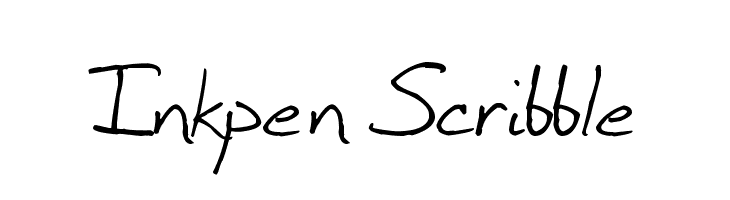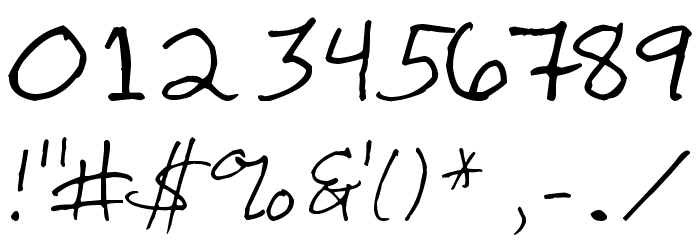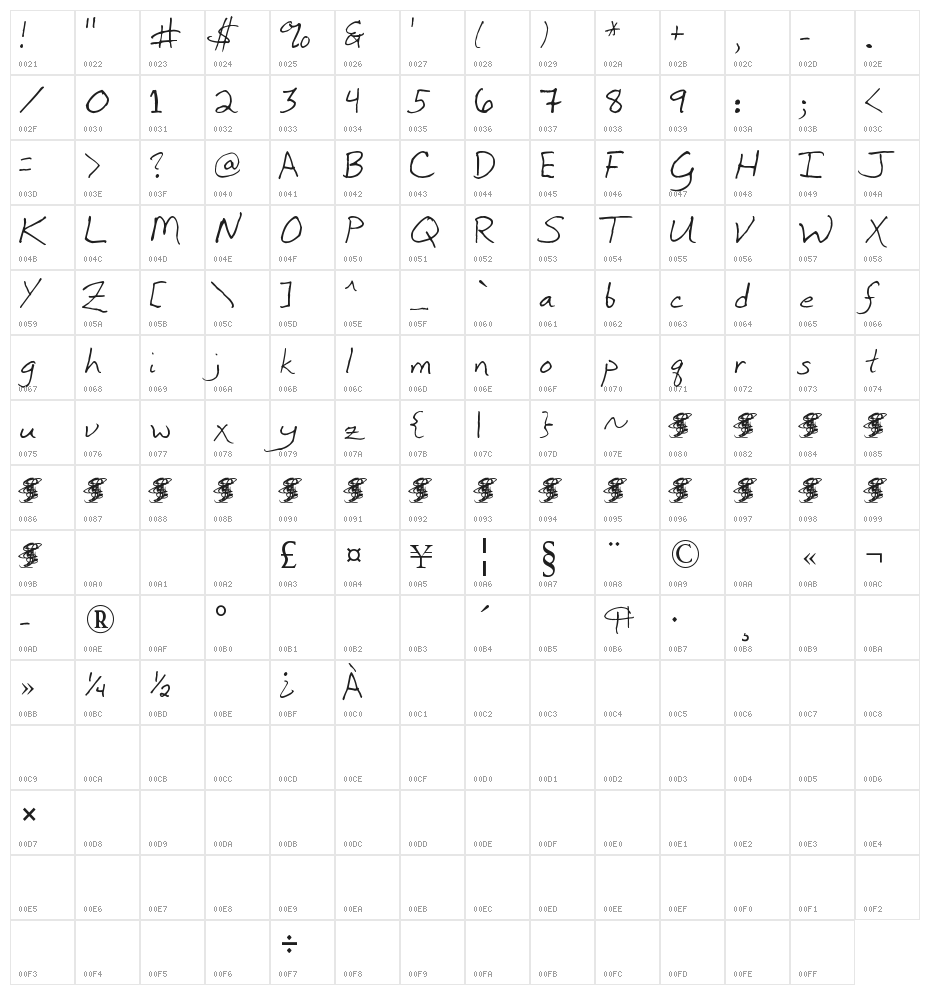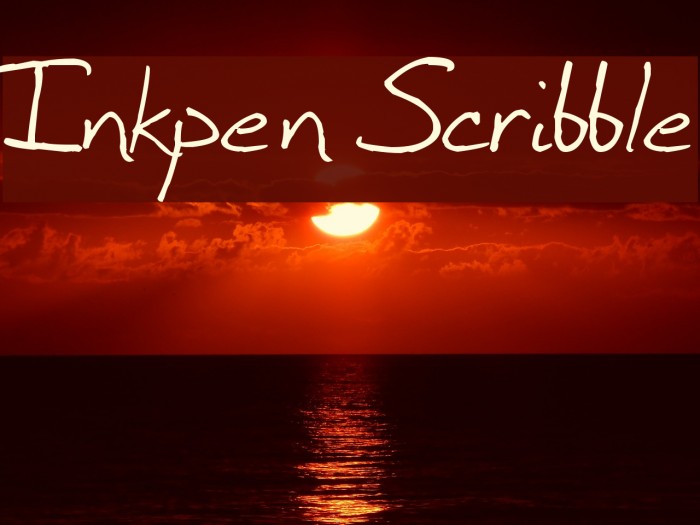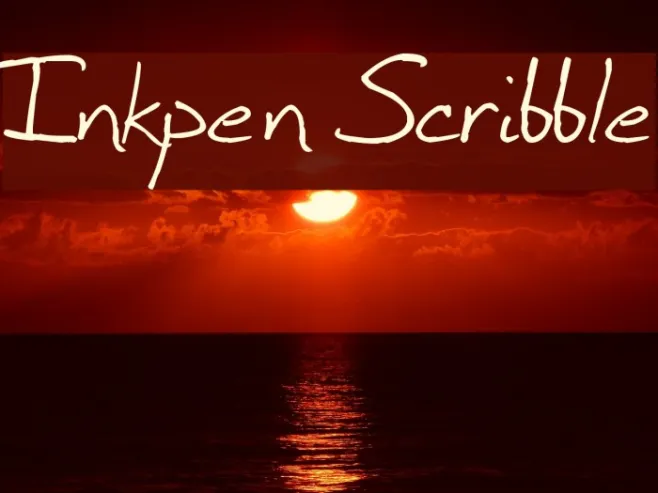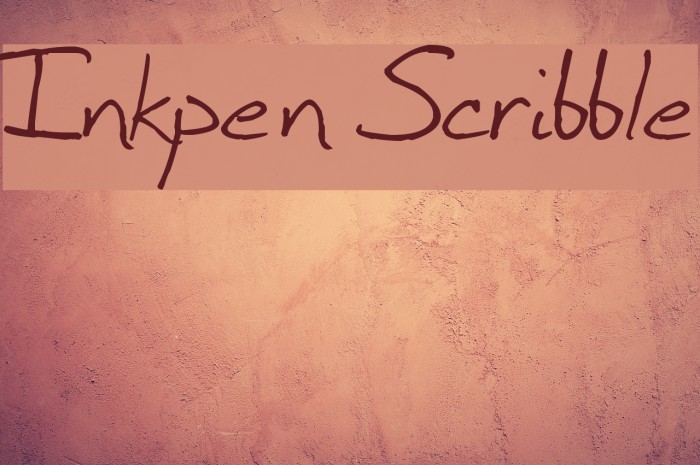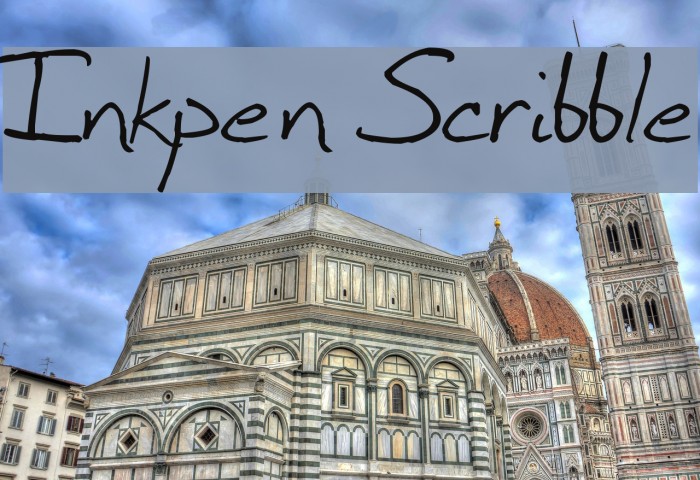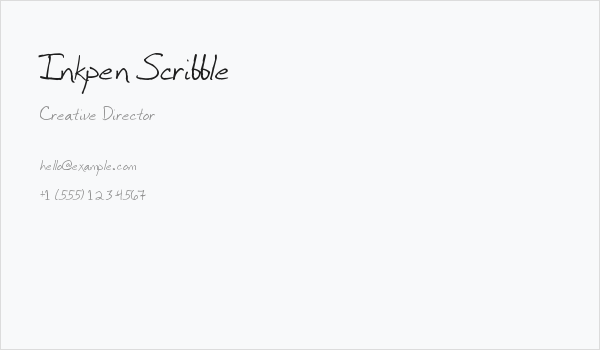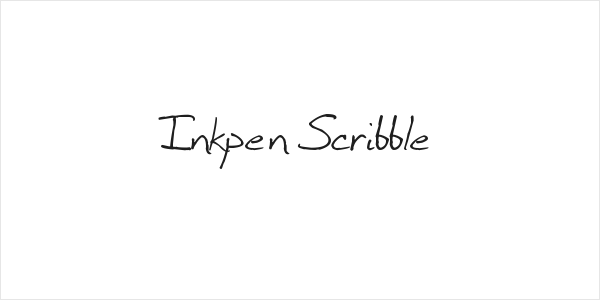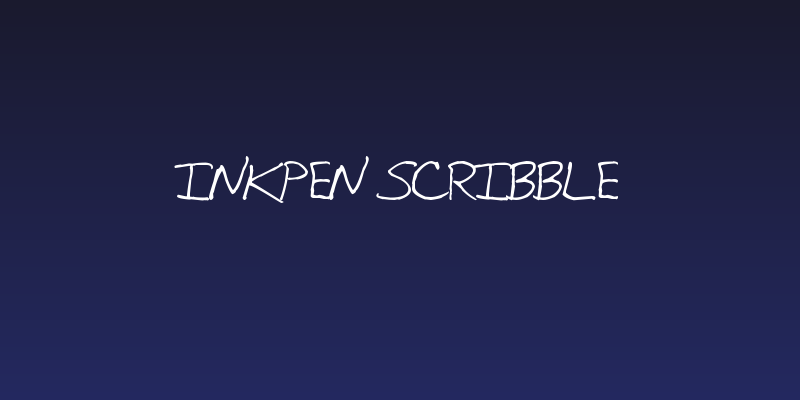
Inkpen Scribble Font
Inkpen Scribble Description
This font exudes a casual, handwritten style that mimics the look of ink pen scribbles. The letters are unevenly spaced and vary in size, giving it an authentic, personal touch. The strokes are irregular and slightly jagged, adding to the informal and spontaneous feel. It captures the essence of quick, impromptu writing, making it ideal for projects that require a personal or artistic flair. The font includes a full set of uppercase and lowercase letters, numbers, and a variety of special characters, all maintaining the same scribbled aesthetic.
| Overall Style | Casual, Artistic |
| Use Case | Creative projects, Informal text, Artistic branding |
| Proposed Projects | Ideal for personal notes, artistic projects, informal invitations, and creative branding. |